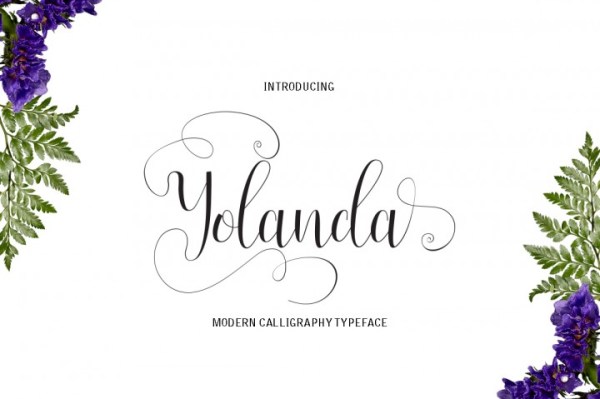
Font Frenzy: Free Yolanda Font
Free Yolanda Font – a lovely modern Caligraphy font by Alqaworns – comes with a free comercial license. It’s only up for grabs for 6 more days so be sure to get it today!